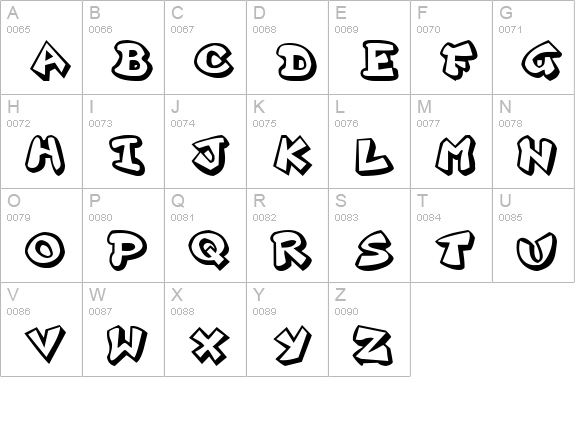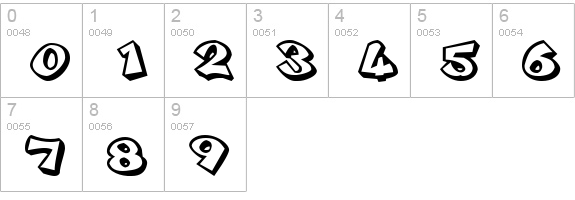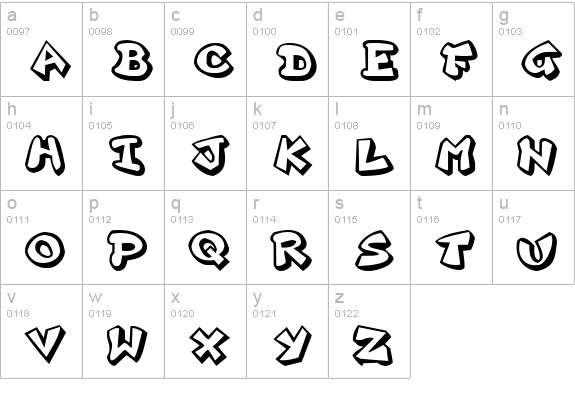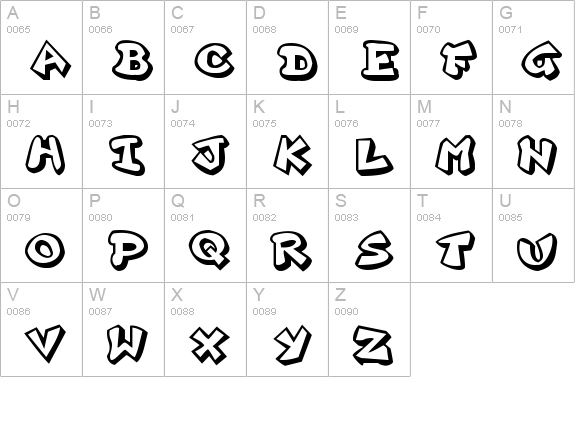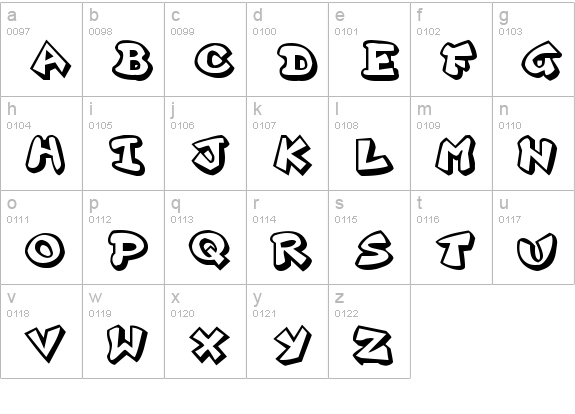
Plok Font Details
The Plok font is a whimsical and playful typeface that adds a touch of fun to any design project. With its unique and quirky letterforms, Plok is perfect for creating eye-catching headlines, posters, invitations, and more. The font features a bold and modern style that is sure to make a statement. Best of all, the Plok font is completely free to download at FontsMarket.com. You can easily add this versatile typeface to your collection and use it in both personal and commercial projects without any restrictions. Don't miss out on this fantastic opportunity to elevate your designs with the charming Plok font. Download it today and let your creativity soar!